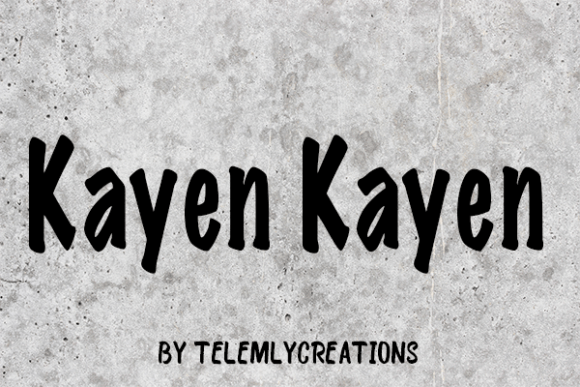
Introduction to Kayen Kayen Font
Have you ever stumbled upon a font that makes your design come alive? I’m sure you have. It’s that magical moment when you see a font that perfectly captures the essence of your creative project. For designers, finding the right font can be a game-changer, and that’s exactly what the Kayen Kayen Font offers.
This beautiful handwritten font is a treasure trove of unique and beautiful touches, making it an ideal choice for creating eye-catching logos, branding, and quotes. Whether you’re working on a high-quality design project or just looking for a free download to spice up your creative work, the Kayen Kayen Font is definitely worth exploring.
With its transparent background and high-quality design, the Kayen Kayen Font is a valuable resource for designers looking to elevate their work. In this article, we’ll dive deeper into the world of this stunning font and explore its many uses and benefits.
Key Features of Kayen Kayen Font
- High-quality, professional design suitable for various creative projects, including logos, branding materials, and digital art.
- Comes with a transparent background, allowing for seamless integration into any design or project.
- Designed with a unique, modern aesthetic, making it an ideal choice for designers seeking a distinctive look for their projects.
Honest Review: Kayen Kayen Font
As a designer, I’m always on the lookout for high-quality fonts that can elevate my creative projects. Recently, I had the chance to try out the Kayen Kayen Font, and I must say it’s a great addition to my design resource collection. ✨
- The Kayen Kayen Font has a unique and modern design that’s perfect for creative projects that require a touch of elegance.
- The font is highly customizable, allowing me to adjust the size, color, and spacing to suit my design needs.
- The transparent background option gives me the flexibility to layer the font over different backgrounds, making it a great choice for designers who like to experiment.
However, there are a few limitations to the Kayen Kayen Font that I’d like to mention. ⚠️
- The font may not be suitable for projects that require a more traditional or serif font style.
Overall, I’m impressed with the Kayen Kayen Font and would definitely recommend it to designers who are looking for a high-quality, modern font for their creative projects. While it may have a few limitations, I believe the benefits far outweigh the drawbacks.
The Kayen Kayen Font is a unique and versatile design resource perfect for creative projects. With its high quality and transparent background, it’s ideal for adding a touch of elegance to your designs.
To get the most out of the Kayen Kayen Font, experiment with different font sizes, colors, and styles. Combine it with other design elements to create a unique look.
The Kayen Kayen Font is perfect for creating invitations, business cards, and other design materials that require a touch of sophistication. Its high quality and transparent background make it ideal for use in creative projects where image and text blend together seamlessly.